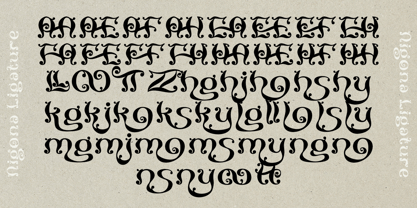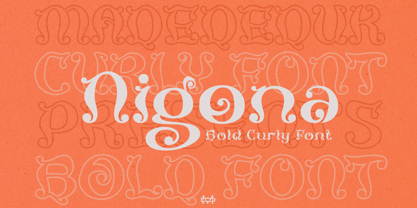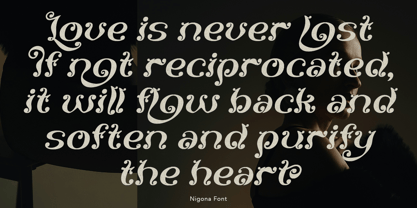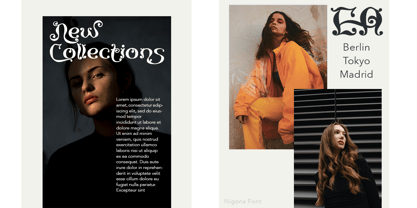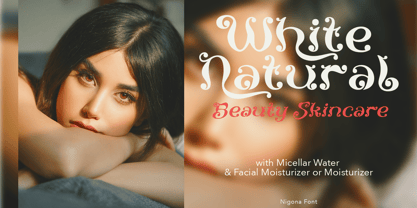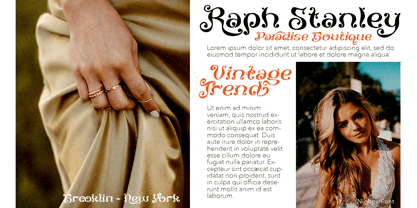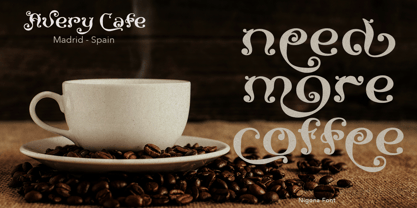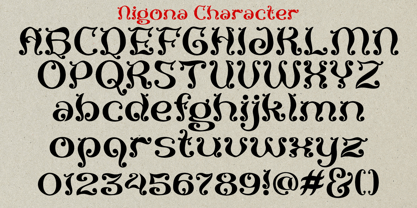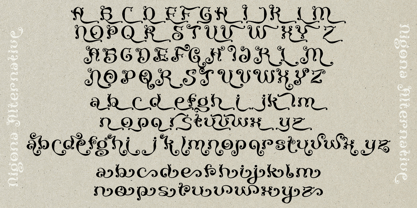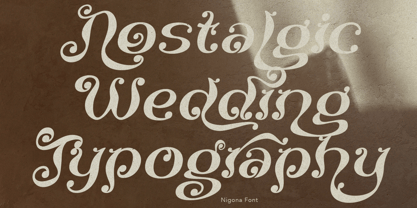
Nigona
by madeDeduk
The Nigona Font Family was designed by madededuk and published by madeDeduk. Nigona contains 2 styles and family package options.
Nigona font inspired by the typography from 70's style, vintage look high contrast serif that is at home in high-end fashion and cultural environments you can explore and combine. This font is very perfect for many display purposes in your product design if you want to a vintage and classic style. Such as book covers, product labels, logos badges, drink bottles, tattoo shop, coffee shops, fashion products, wedding invitation, etc.